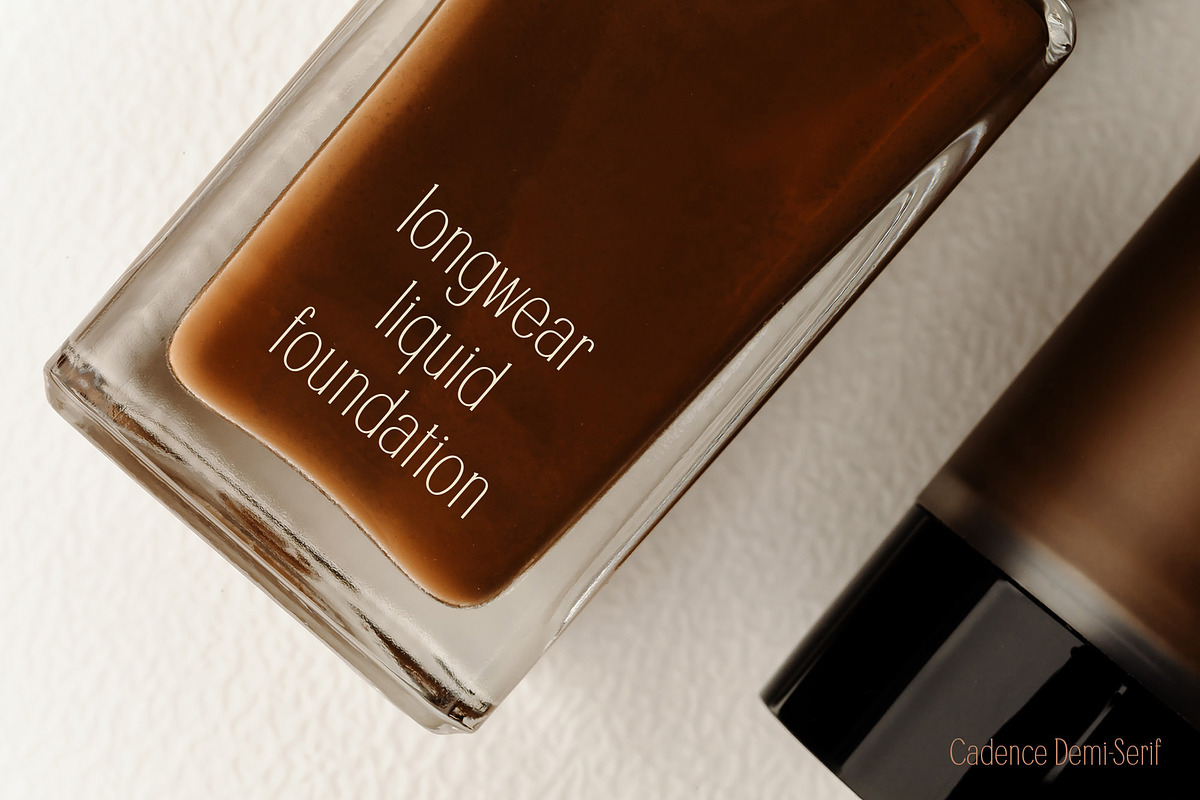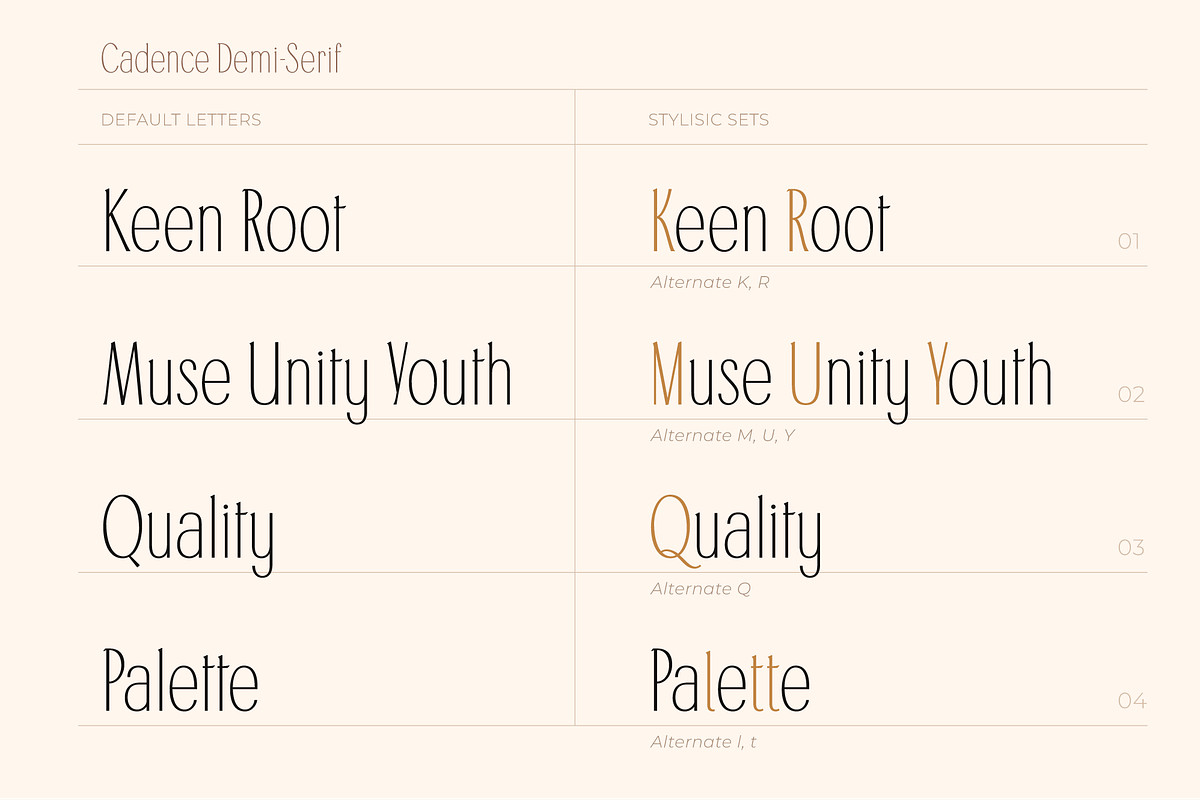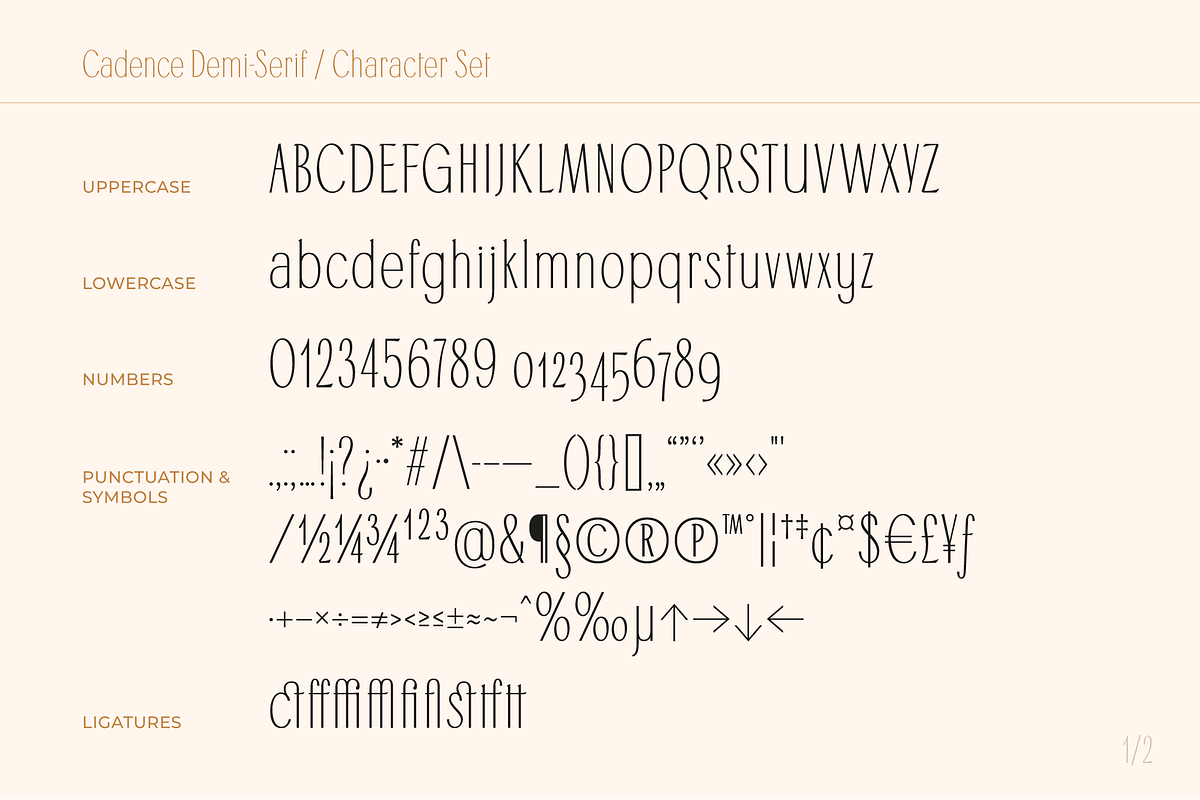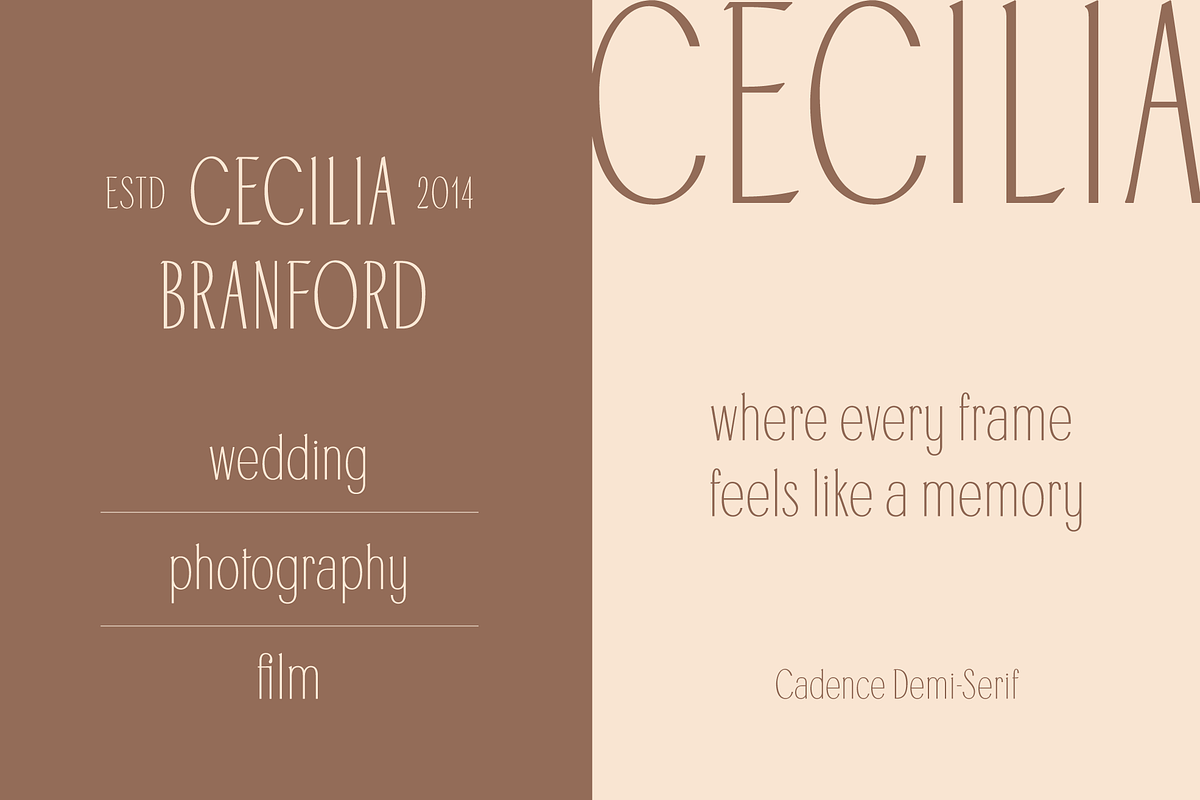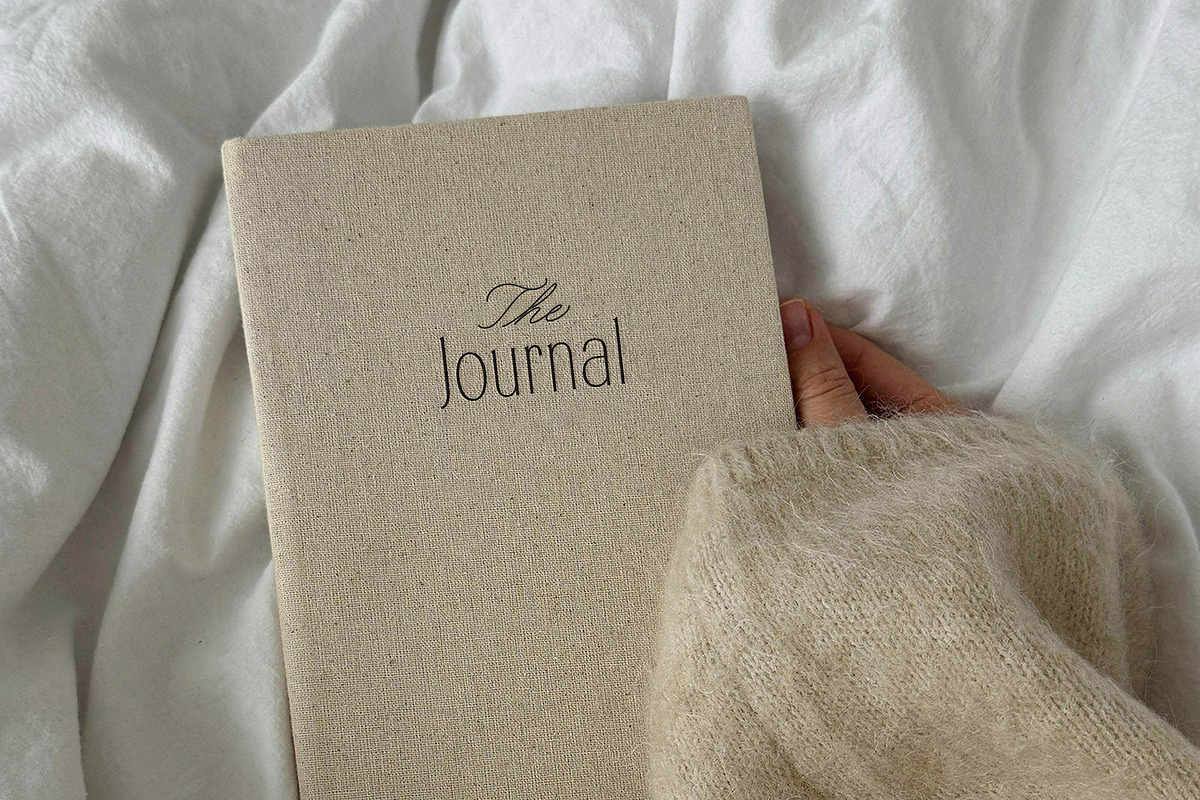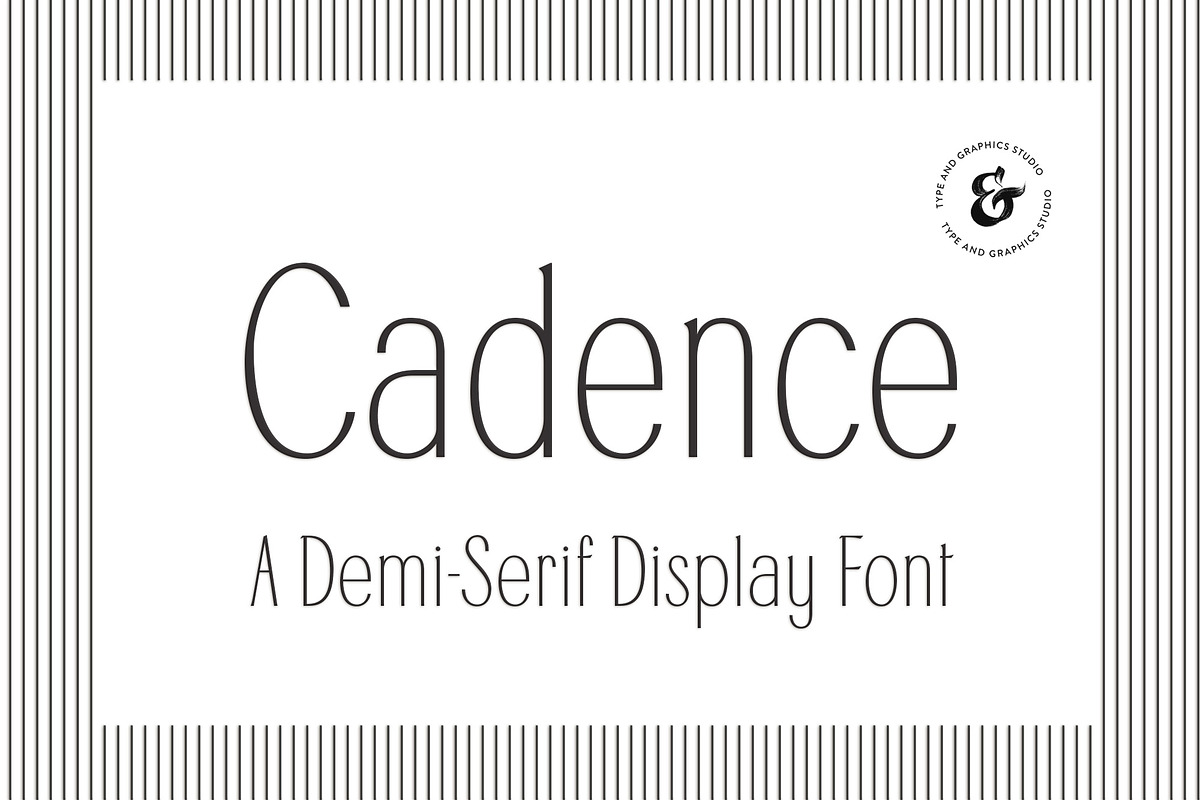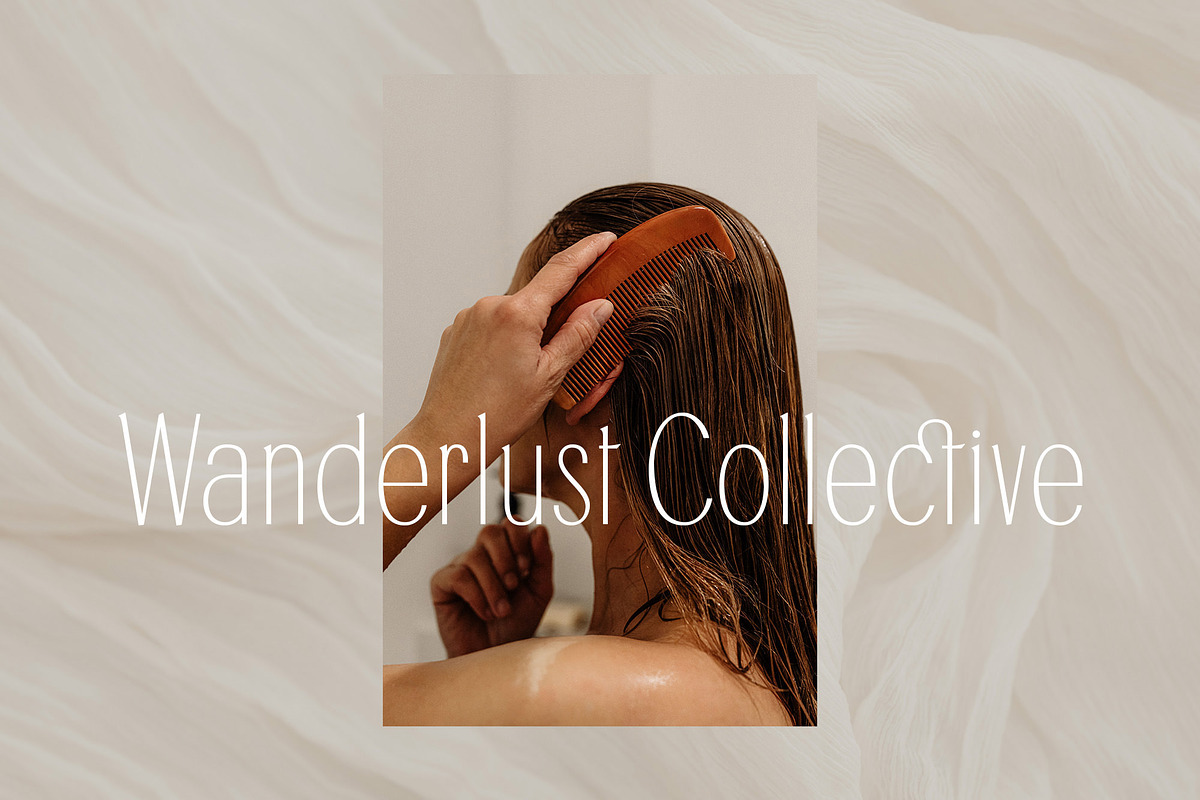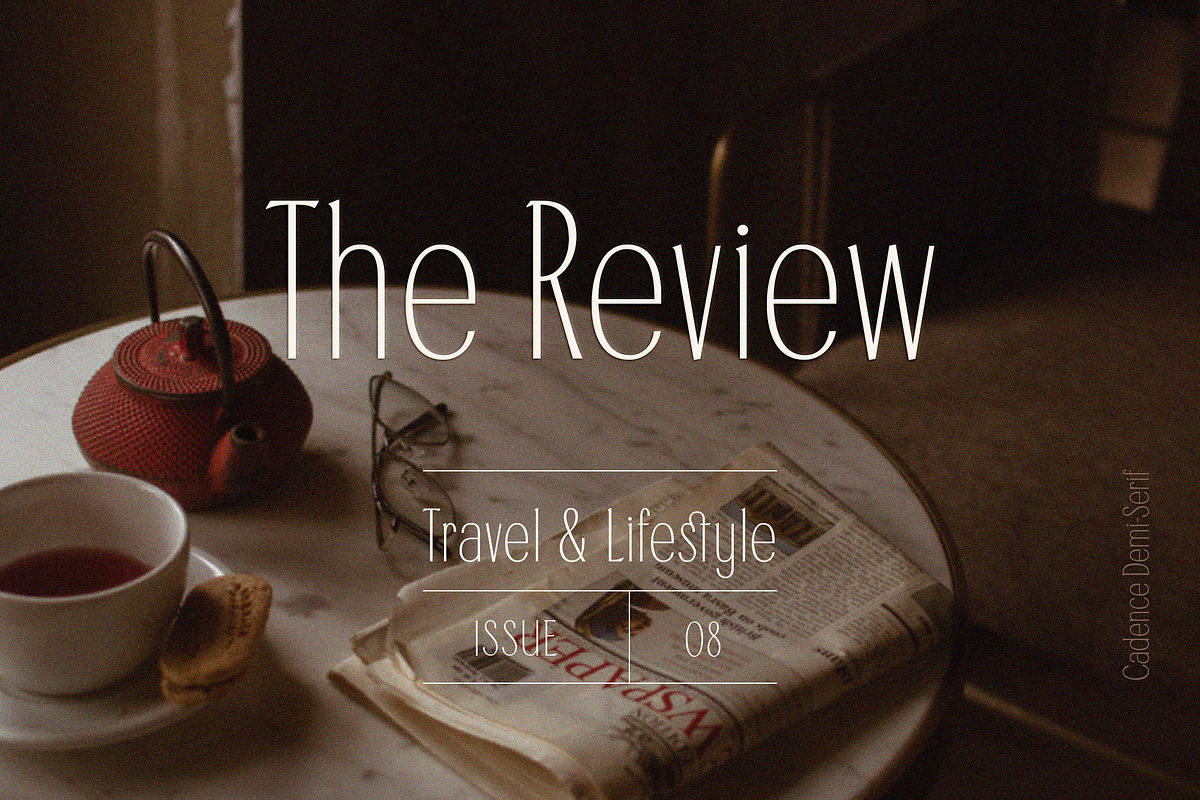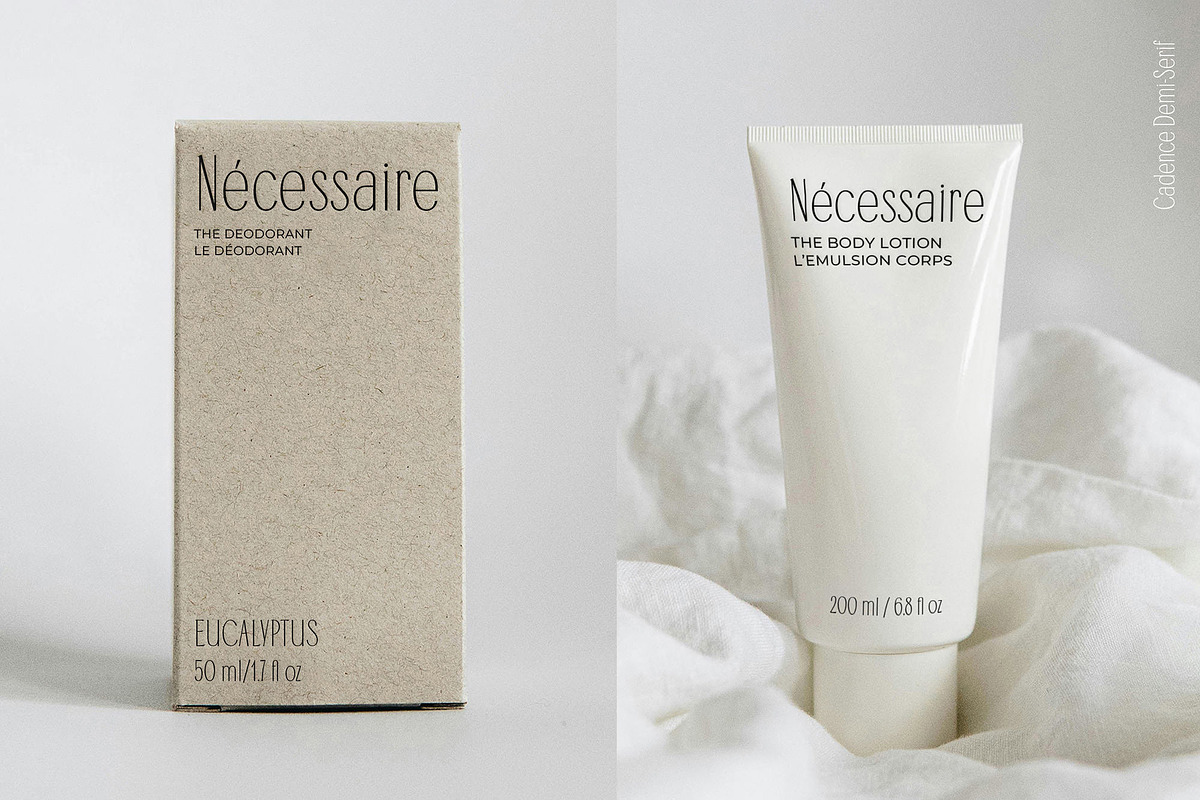
Cadence Demi-Serif Display Font
Cadence is a refined demi-serif display typeface that balances softness with structure. With its high x-height, subtle Art Deco undertones, and low contrast strokes, it brings a light, lyrical rhythm to your typography.
Designed to feel graceful, modern, and quietly expressive, Cadence blends classic influences with contemporary clarity. The result is a versatile font that feels at home in both editorial layouts and elevated branding.
💫 Perfect for:
- Editorial design & magazine layouts
- Fashion & luxury branding
- Minimalist packaging
- Lifestyle blogs & beauty campaigns
- Elegant headers & refined web typography
🔠 Features:
- Lining and oldstyle figures
- Punctuation & symbols
Let Cadence bring a lyrical clarity to your next design. Whether used in bold headlines or as a subtle accent, this demi-serif invites readers in with grace, charm, and a quiet sense of confidence.